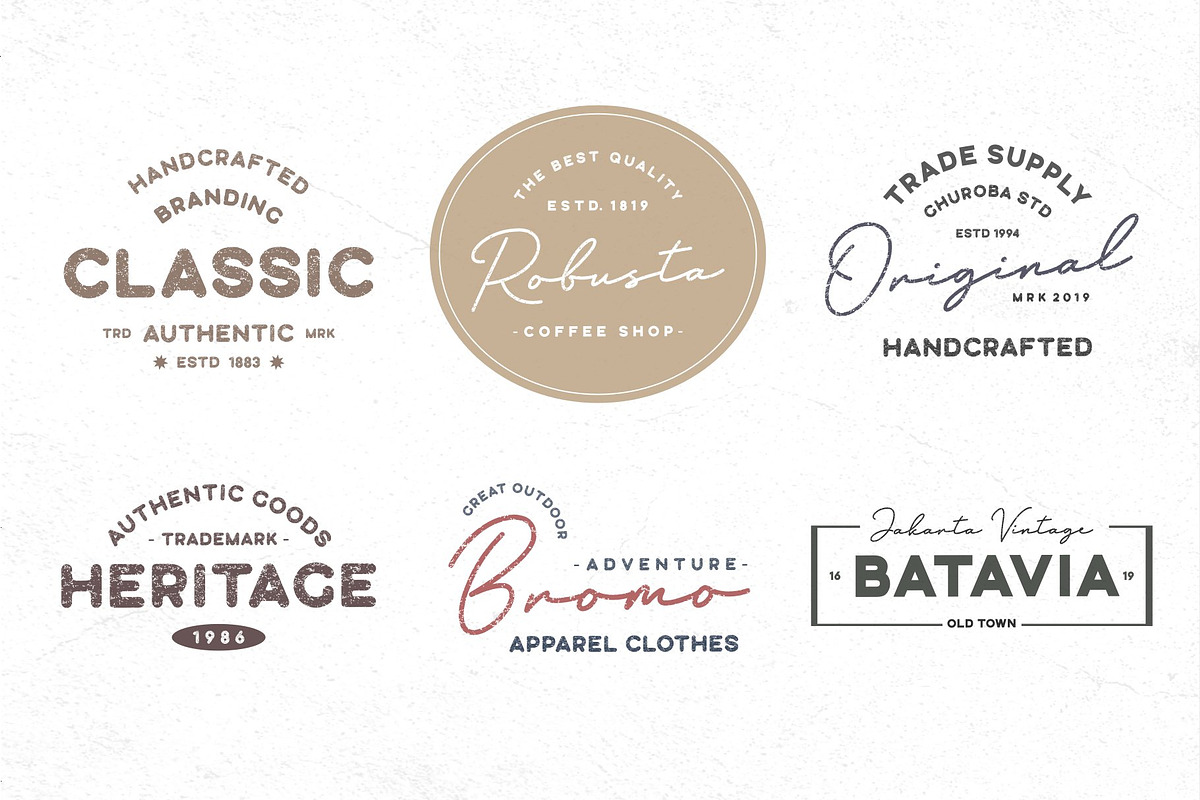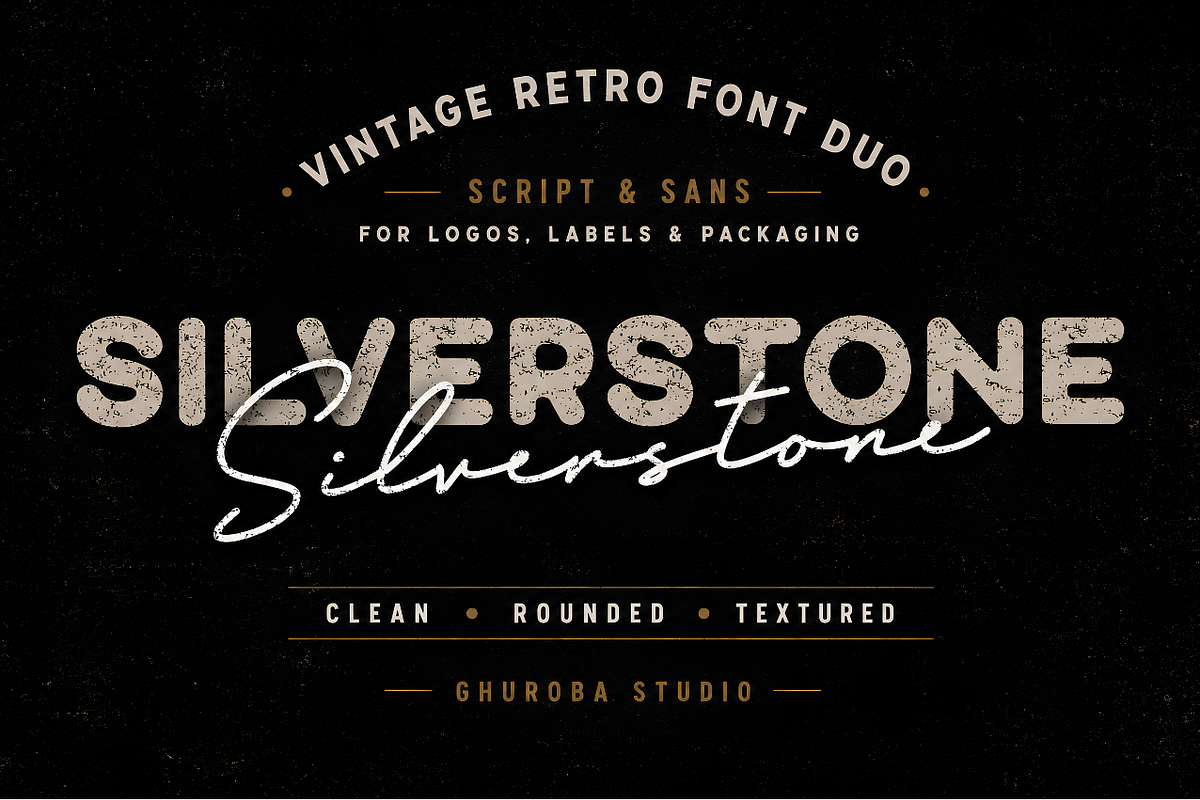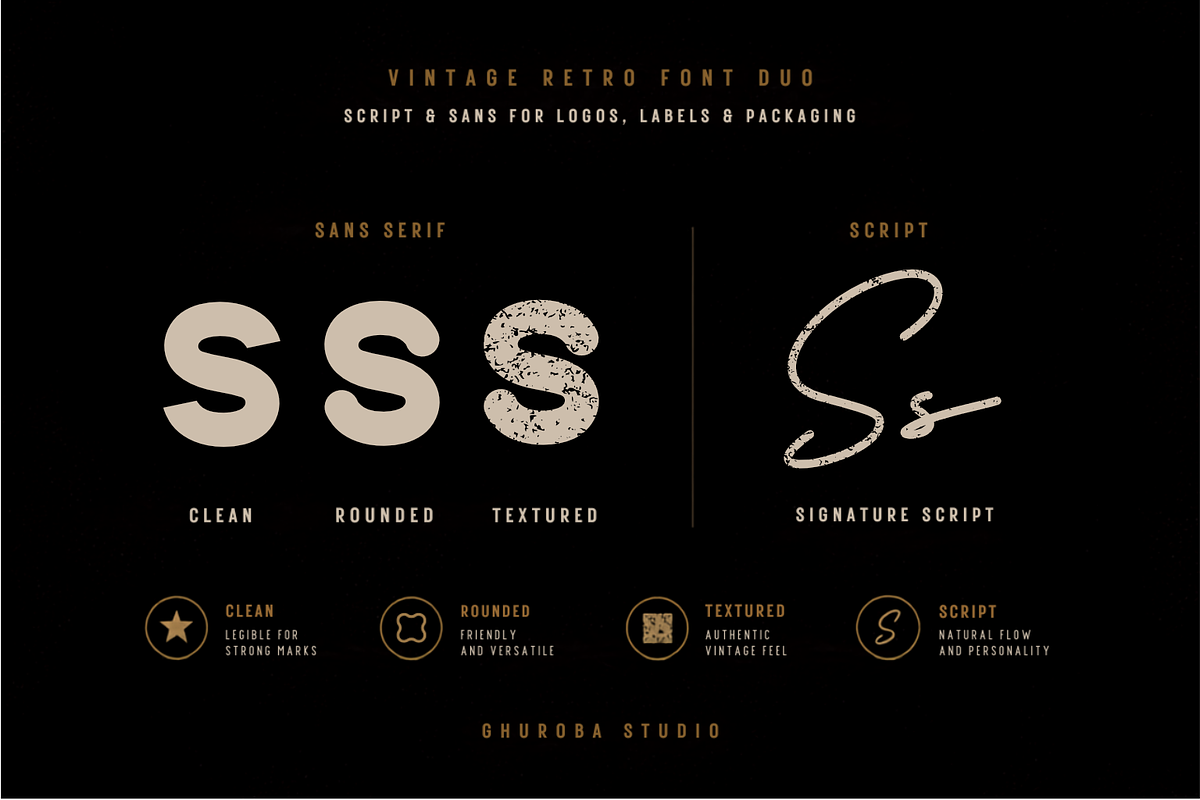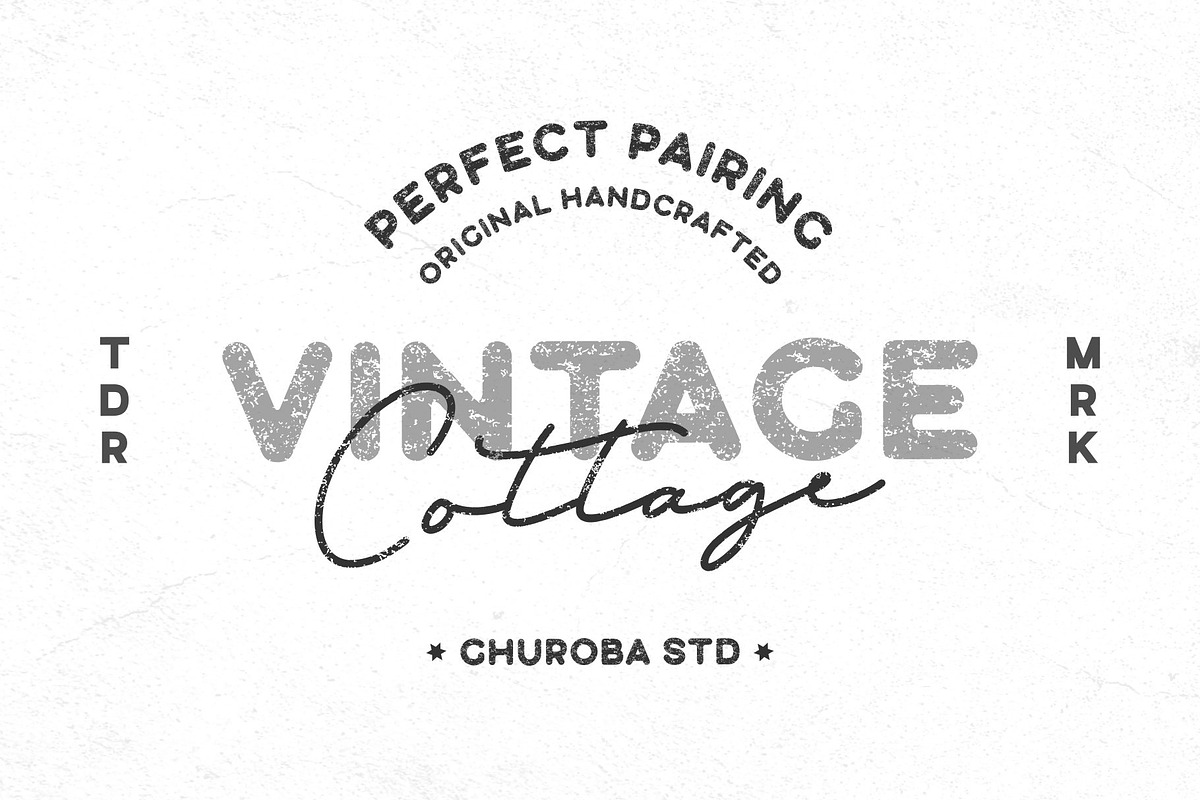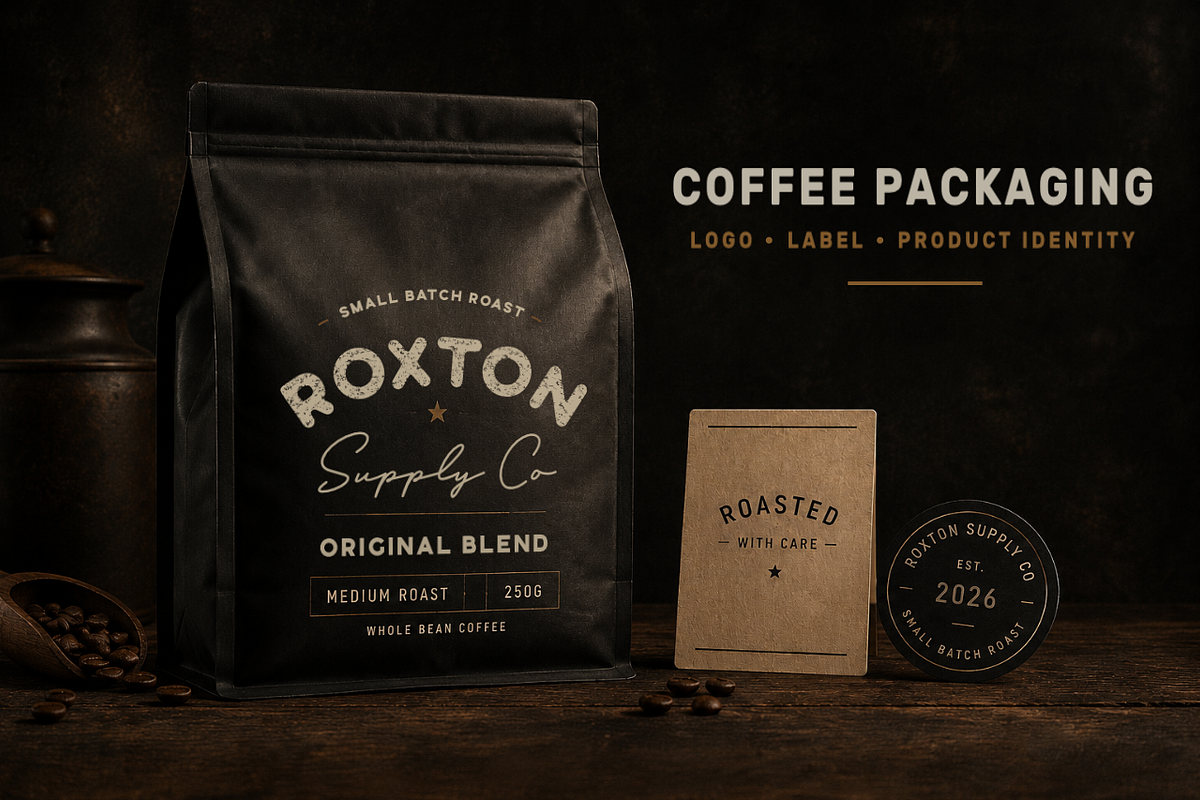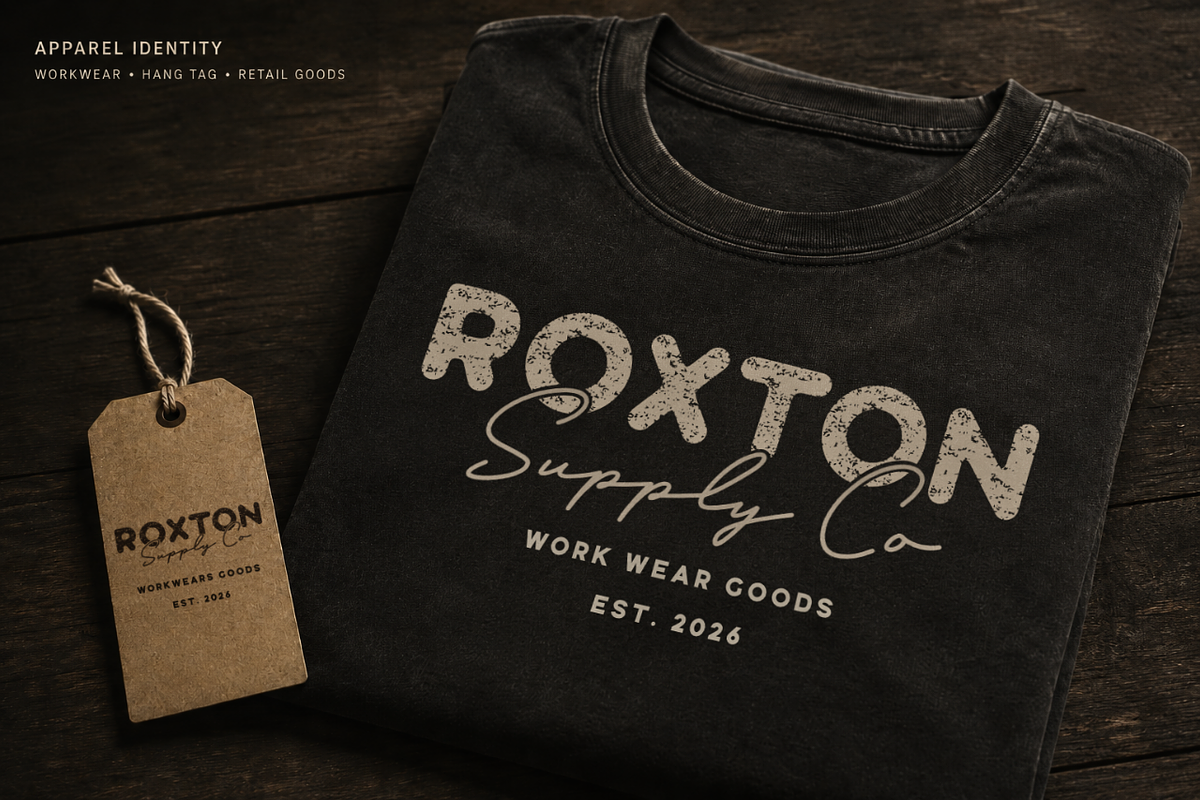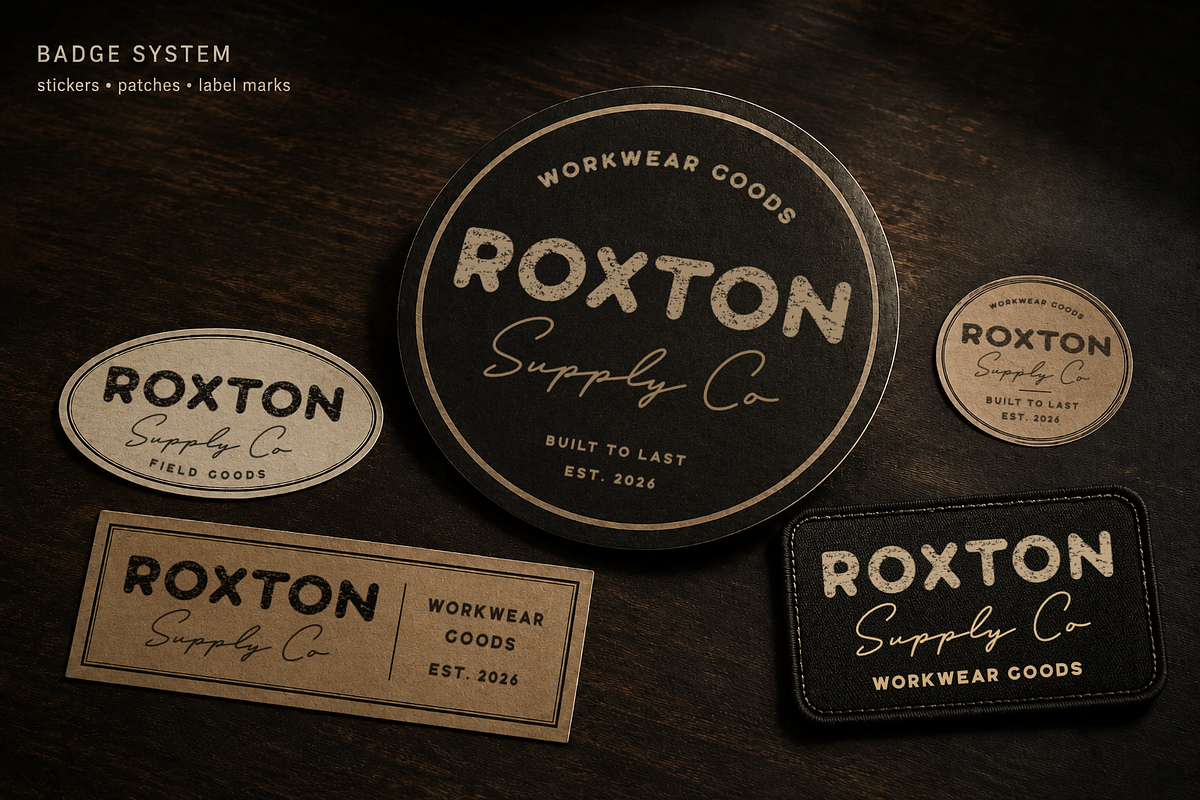
Silverstone Vintage Retro Font Duo
Silverstone is a vintage retro font duo featuring bold sans and handwritten script styles for logos, branding, packaging, labels, apparel graphics, badges, signage, posters, and textured retail identity.
Built with clean, rounded, and textured styles, Silverstone gives designers a practical type pairing for creating vintage logos, retro badges, coffee packaging, outdoor labels, clothing graphics, workshop marks, and brand visuals with a worn printed feel.
This collection works well for projects that need a handcrafted look without building every logo from scratch: heritage brands, coffee shops, apparel labels, barber identities, adventure goods, small-batch packaging, and maker-led retail brands.
Silverstone Vintage Script — Clean & Textured
Silverstone Vintage Sans — Clean, Rounded & Textured
Uppercase and lowercase letters
Numbers and punctuation
Clean, rounded, and textured styles